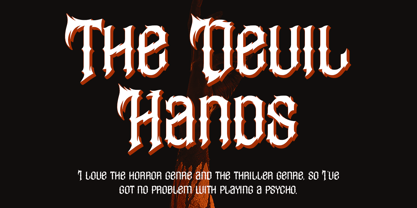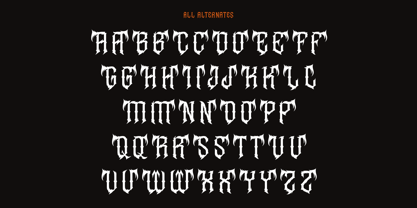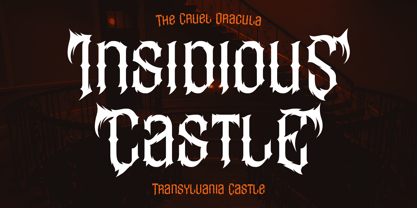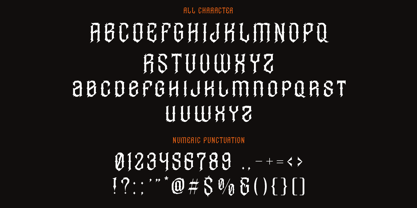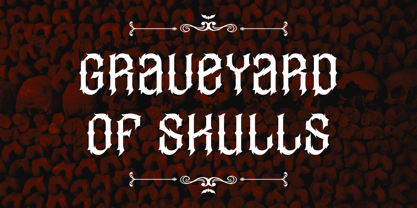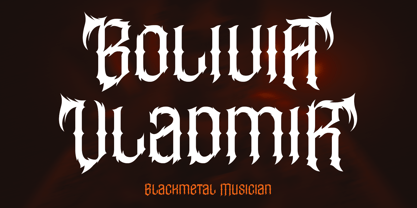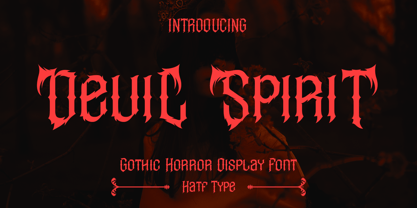
Devil Spirit
by Hatftype
The Devil Spirit Font Family was designed by Asep Rendi and published by Hatftype. Devil Spirit contains 1 styles. More about this family
Devil Spirit is a gothic horror-themed display font that exudes a dark, mystical feel, and is full of dark energy. With sharp, spiky, and textured letterforms resembling demonic shadows, this font creates a tense yet elegant atmosphere.
Every curve of the letterform is designed to convey a dark aura, making it a perfect choice for horror, gothic, heavy metal, Halloween-themed works, and even posters and covers with a mysterious feel. Devil Spirit is more than just a font; it's a symbol of power born from the darkest corners of the imagination.
With a strong, challenging, and bold style, Devil Spirit is ready to strengthen your visual identity, making it more striking, distinctive, and unforgettable.